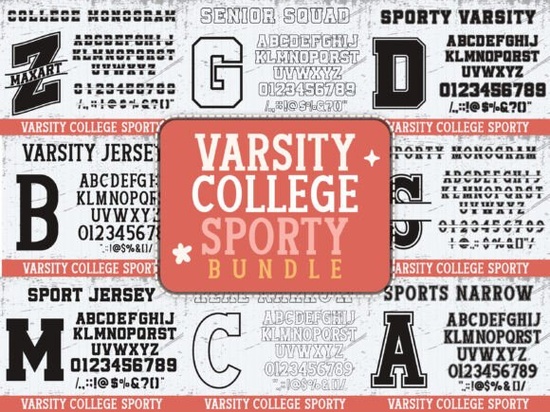
If you're looking for a bold, energetic font that captures the spirit of college sports and team pride, the Varsity College Sporty Bundle Font is a straightforward choice. It’s not a flashy novelty it’s a well-drawn, versatile display font built on classic varsity lettering, updated with clean lines and consistent spacing. Designers and crafters use it for things like custom t-shirts, spirit banners, gym bags, and dorm room posters anything where you want text to feel athletic, confident, and instantly recognizable.
Who actually uses this font and why?
This isn’t just for school merch shops. Small businesses making local league apparel, teachers designing pep rally signs, parents personalizing graduation gifts, and print-on-demand sellers building seasonal collections all find real value here. The bundle includes multiple weights and alternate characters (like outlined letters or shadowed versions), so you can mix and match without needing extra fonts. That saves time when mocking up designs in Cricut Design Space, Silhouette Studio, or Canva.
Because it’s designed as a display font not body text it works best at larger sizes: 36pt and up for print, or 48px+ for web banners. You’ll notice it holds up well even when cut from vinyl or heat-pressed onto fabric. No thin strokes to break, no fragile serifs to snag just solid, legible shapes that read clearly from across a gym or football field.
How does it compare to other sporty or spirited fonts?
It sits comfortably between nostalgic and modern. Unlike overly retro fonts that lean too heavily on 1950s lettering quirks, the Varsity College Sporty Bundle Font avoids dated flourishes while keeping that unmistakable “letterman jacket” energy. If you’ve tried the Roadster Customs Font, you’ll recognize a similar confidence but with more collegiate warmth and less automotive edge. And compared to the playful bounce of the Cute Teacher Font, this one stays grounded in structure and impact.
It’s also more focused than general-purpose display fonts like the Brother Children Font, which leans into whimsy and family themes. Here, the priority is clarity, presence, and team identity not cuteness or nostalgia for its own sake.
What kinds of projects work best with it?
- Spirit wear: Team names, jersey numbers, mascot slogans (“Go Hawks!”, “Rams Rise”) printed on hoodies, caps, or tote bags.
- Home & dorm decor: Framed wall art, chalkboard signs, or vinyl decals for bedrooms or game rooms.
- Event materials: Tournament flyers, pep rally banners, or senior send-off posters especially when paired with simple icons (stars, stripes, or blocky shields).
- Digital use: Social media graphics for school accounts, Instagram story highlights, or YouTube thumbnails for sports recap videos.
You don’t need advanced typography knowledge to get good results. Start with uppercase text it’s where the font shines most and avoid stretching or distorting the letters. Kerning is already well-tuned, so minor adjustments are usually enough. For contrast, pair it with a clean sans-serif (like Montserrat or Open Sans) for subtitles or captions.
What about seasonal or themed variations?
The Halloween Font collection offers fun alternatives if you’re shifting from fall football to pumpkin-carving season but the Varsity bundle still holds up year-round. Its boldness translates well to holiday spirit gear too: think “Homecoming 2024” signs or “Senior Night” banners. It’s flexible enough to support themed campaigns without feeling out of place.
One thing to keep in mind: this isn’t a handwriting or script font. It doesn’t mimic chalk, brush strokes, or graffiti. It’s structured, intentional, and built for visibility not texture or trendiness. That makes it reliable across mediums and audiences.
If you’re building a small shop or starting a new design project, having a go-to varsity-style font cuts down on decision fatigue. You won’t need to hunt for “just the right” sporty look every time. Instead, you open the file, type your text, pick a weight, and move on knowing it’ll land with energy and authenticity.